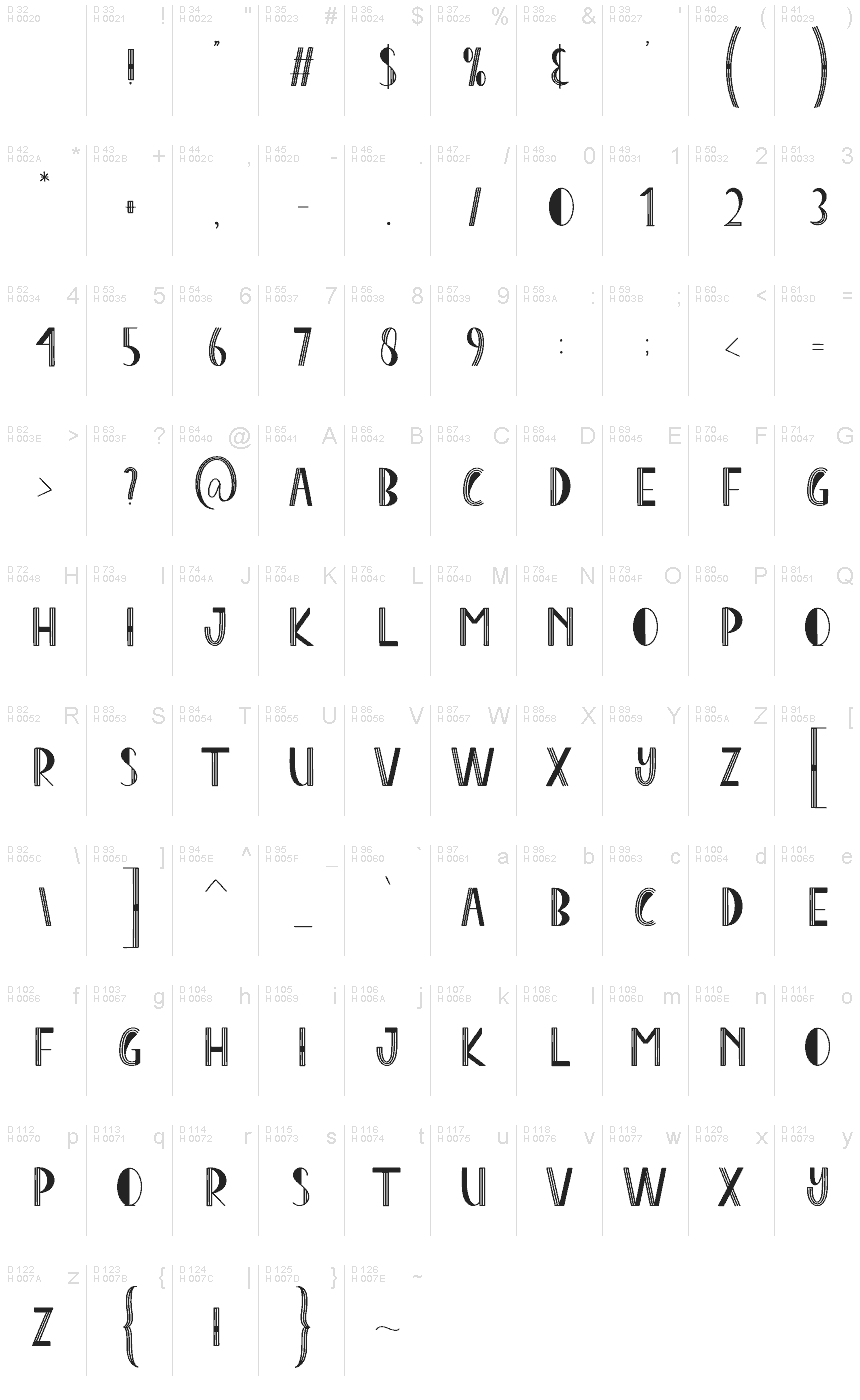
Black Monday
Black Monday font by Andi Moz is a delightful display font that screams 'elegance'. This Art Deco-inspired beauty carries a geometric structure with decorative elements that give each single letter an artistic edge. A vintage appeal hides behind this sophisticated typeface that has both serif and sans serif attributes; best described as an in-between.
If you decide to pick up Black Monday, you'll have yourself a free display font that's perfect for posters, signage, magazines, editorial publications, packaging designs, graphic illustrations, logos and branding projects. Titles of any kind will have unequaled supremacy written using its characters.